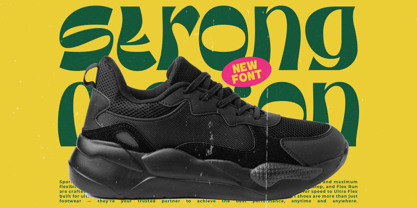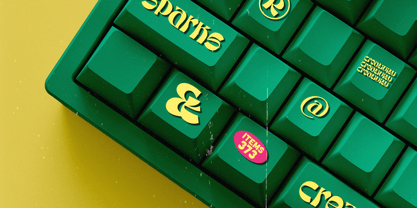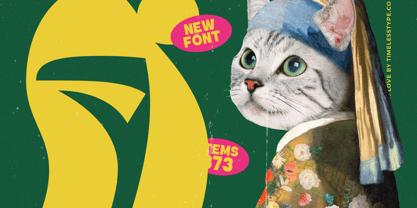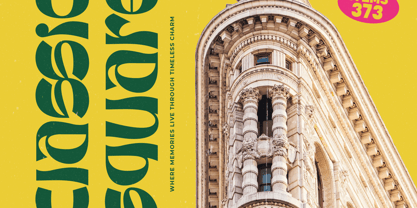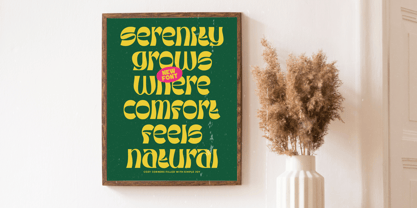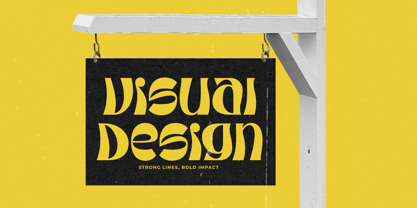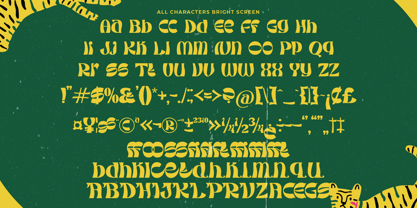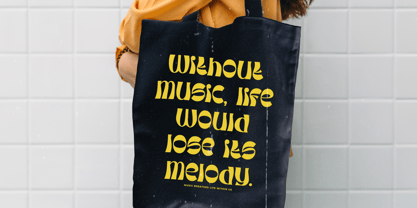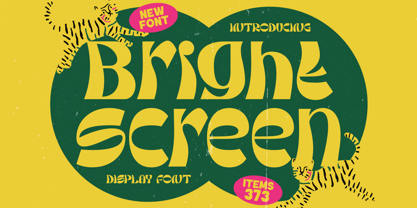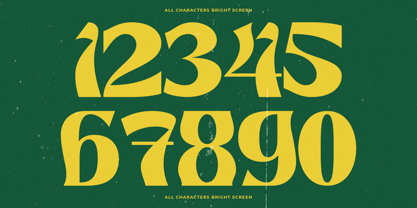
Bright Screen
The Bright Screen Font Family was designed by Heru Utama Putra and published by Timelesstype Studio. Bright Screen contains 2 styles and family package options.
Bright Screen - Modern Display Font , from Timelesstype , Suitable for any projects such as: logos, branding projects, homeware designs, product packaging, mugs, quotes, posters, shopping bags, t-shirts, book covers, name card, invitation cards, greeting cards, label, photography, watermark, special events, and all your other luxury and beautiful projects that need a Luxury Serif taste.